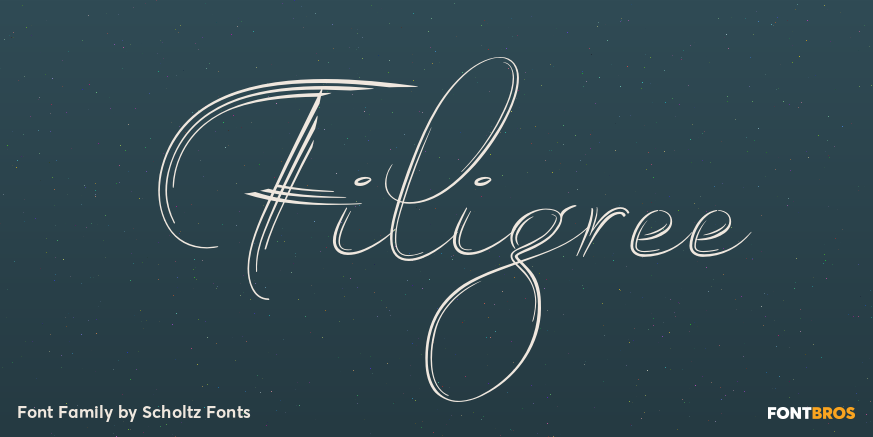
Filigree
About Filigree
Filigree, reminiscent of the delicate lace and jewelry produced in Europe in the 16th to 18th centuries, was inspired by the font Always, and by the way in which the threads (or filia) of the characters in Always intertwined. It has a soft, wafty character.…